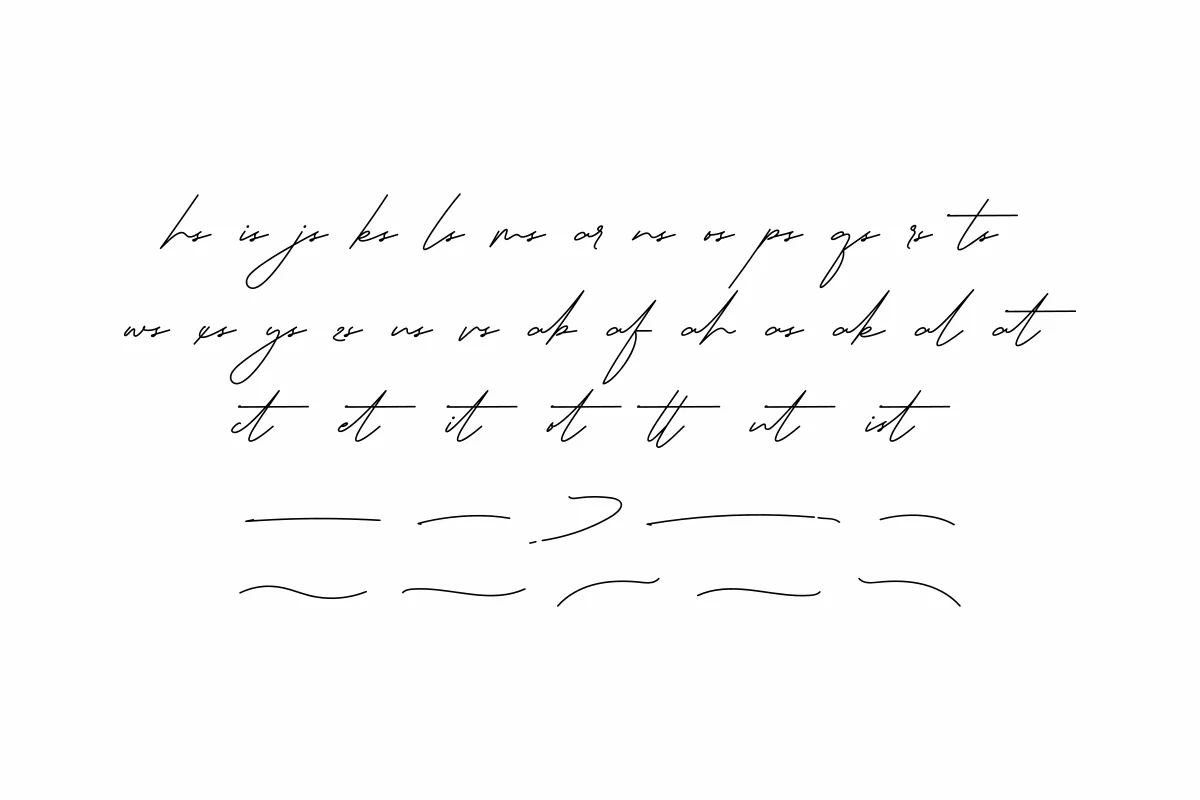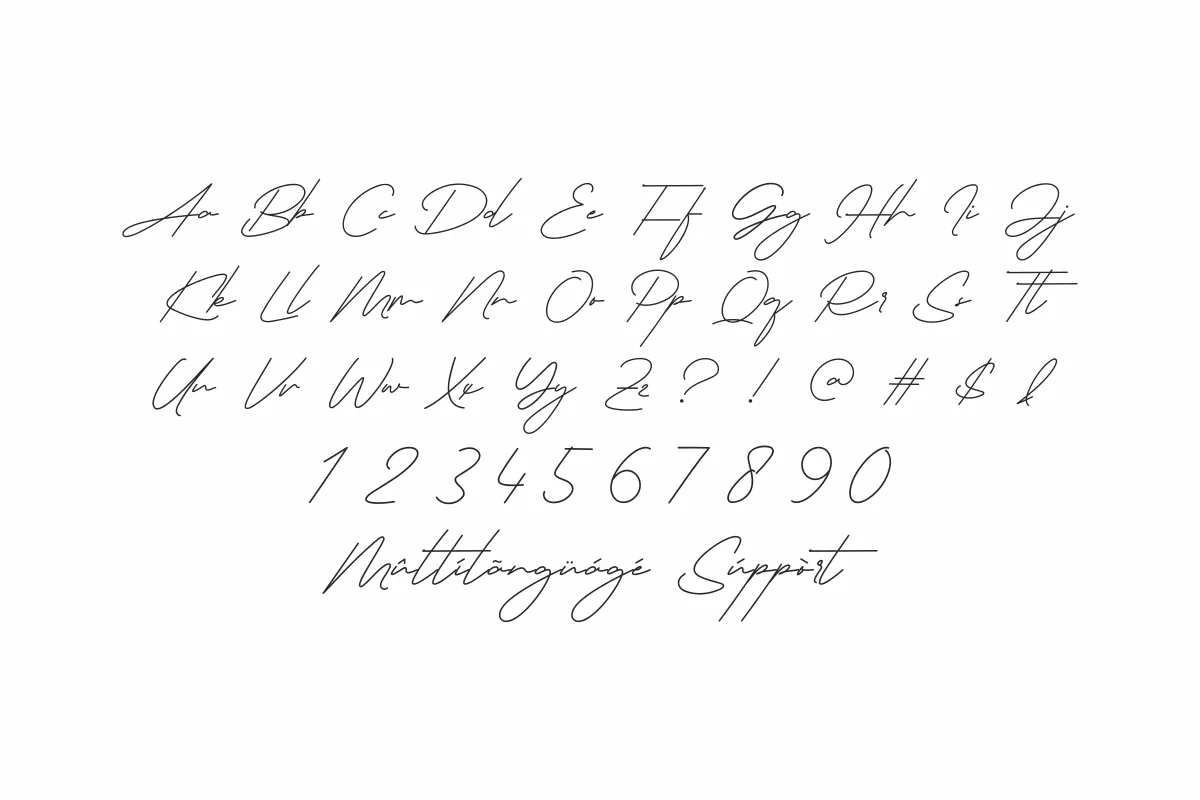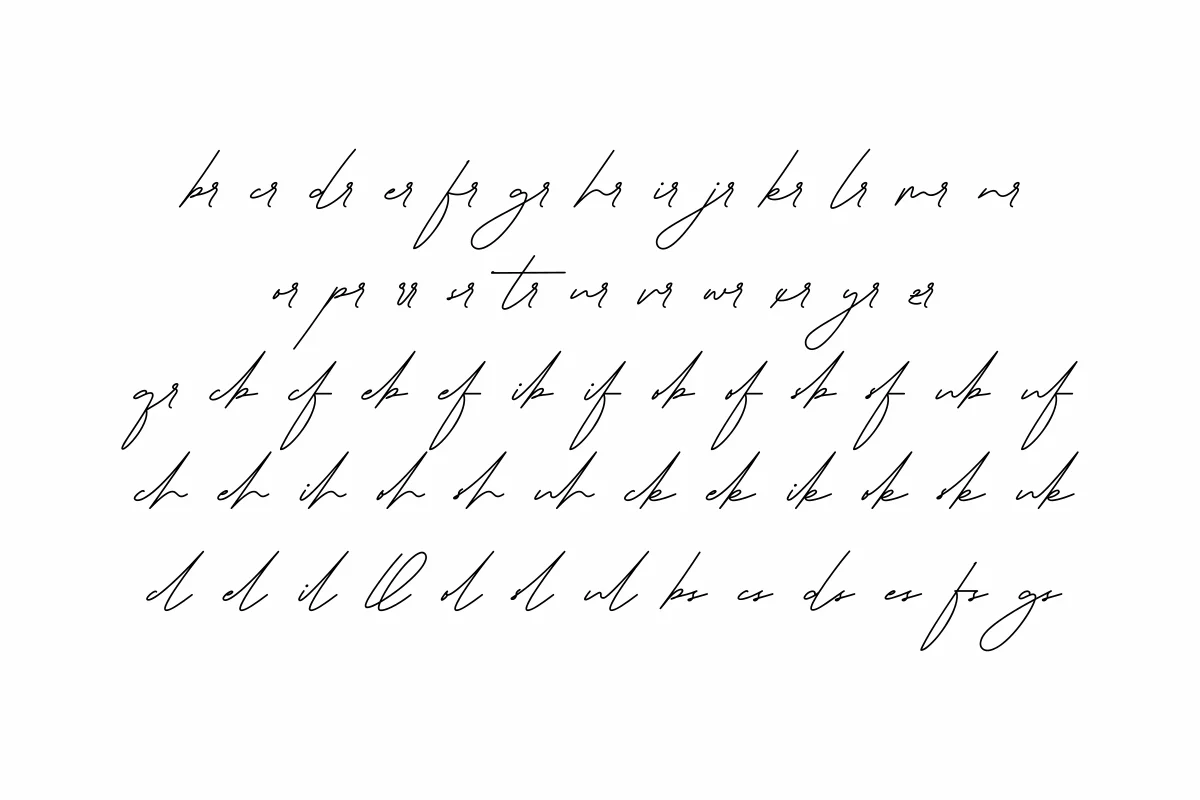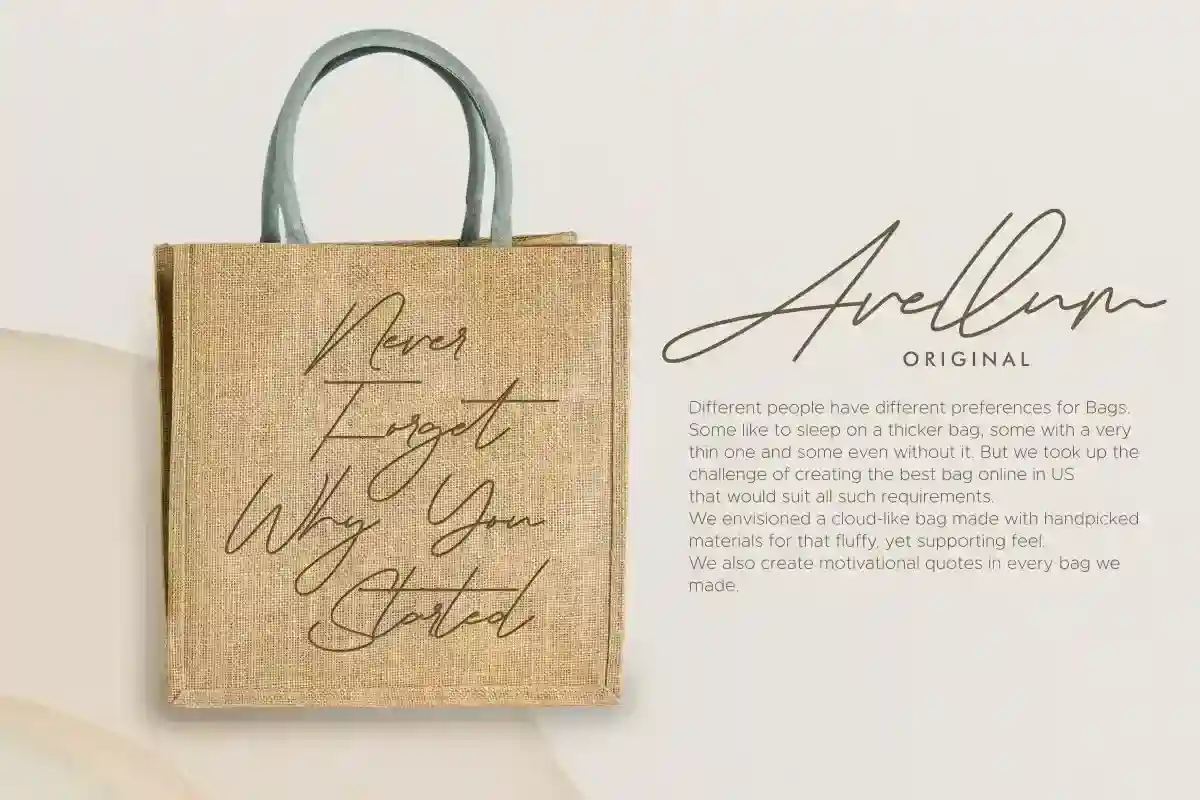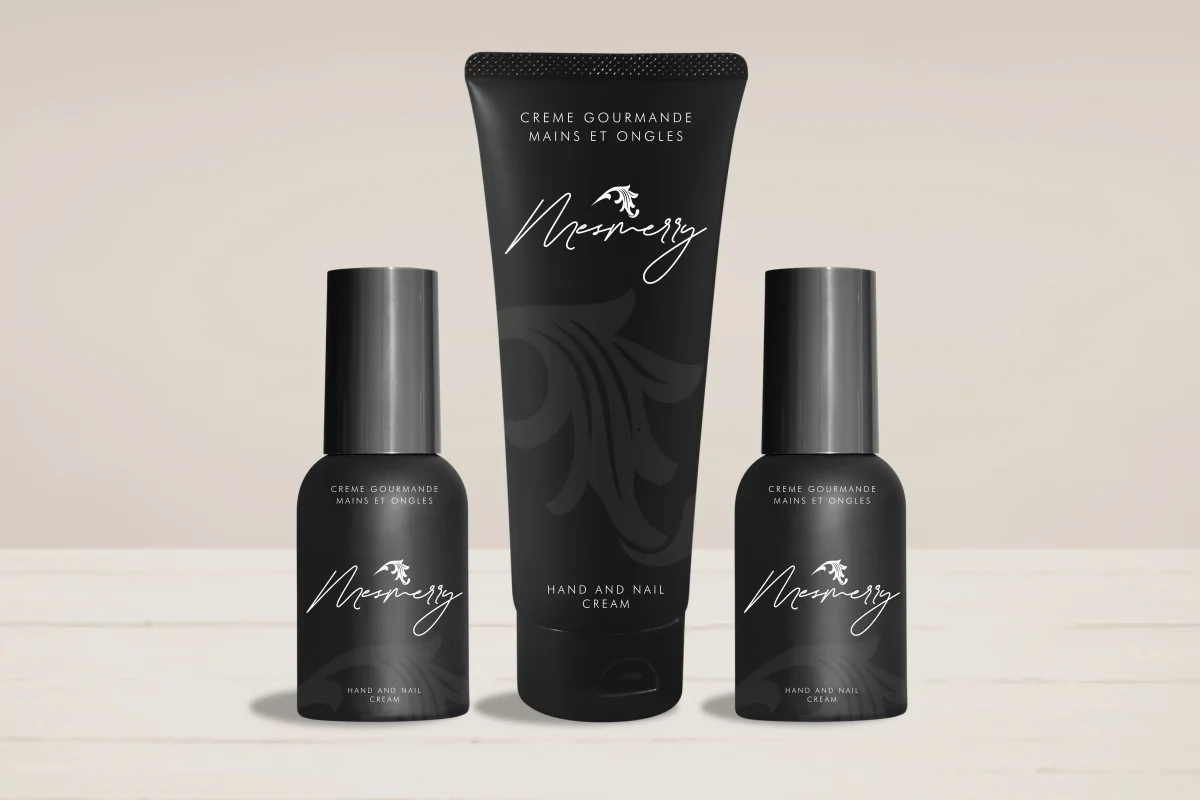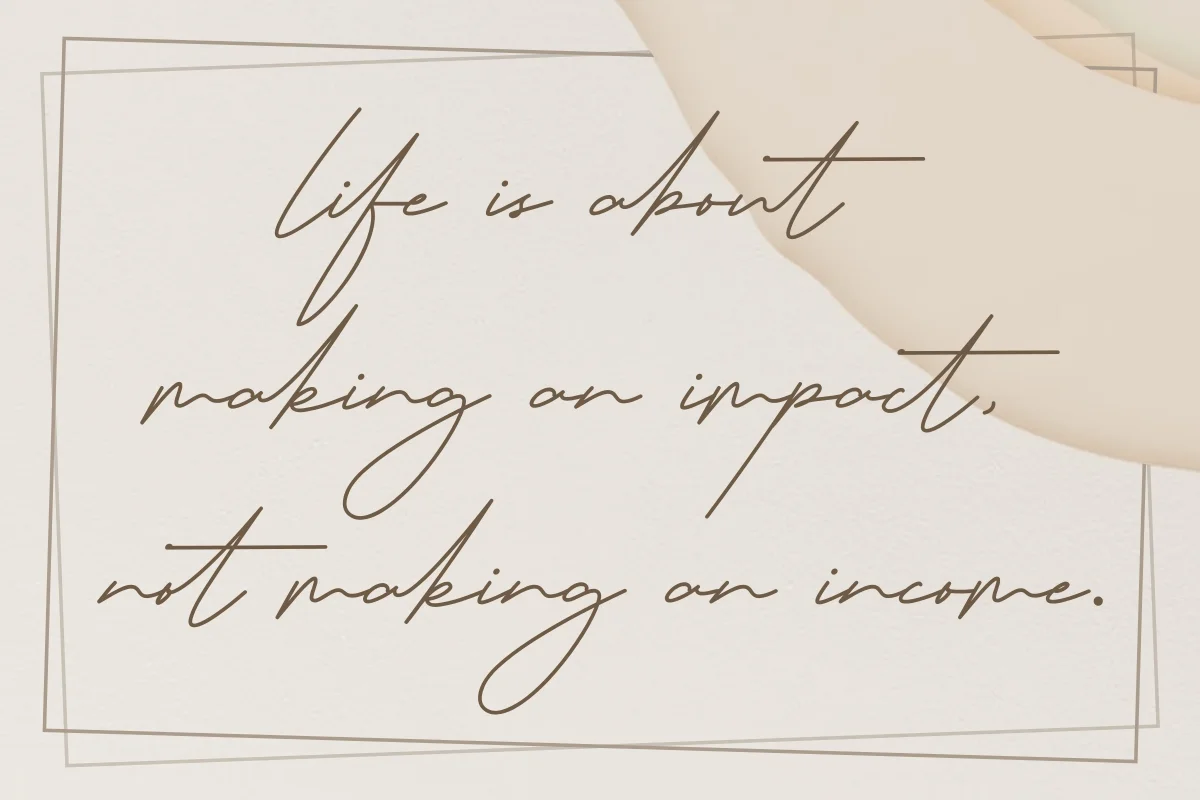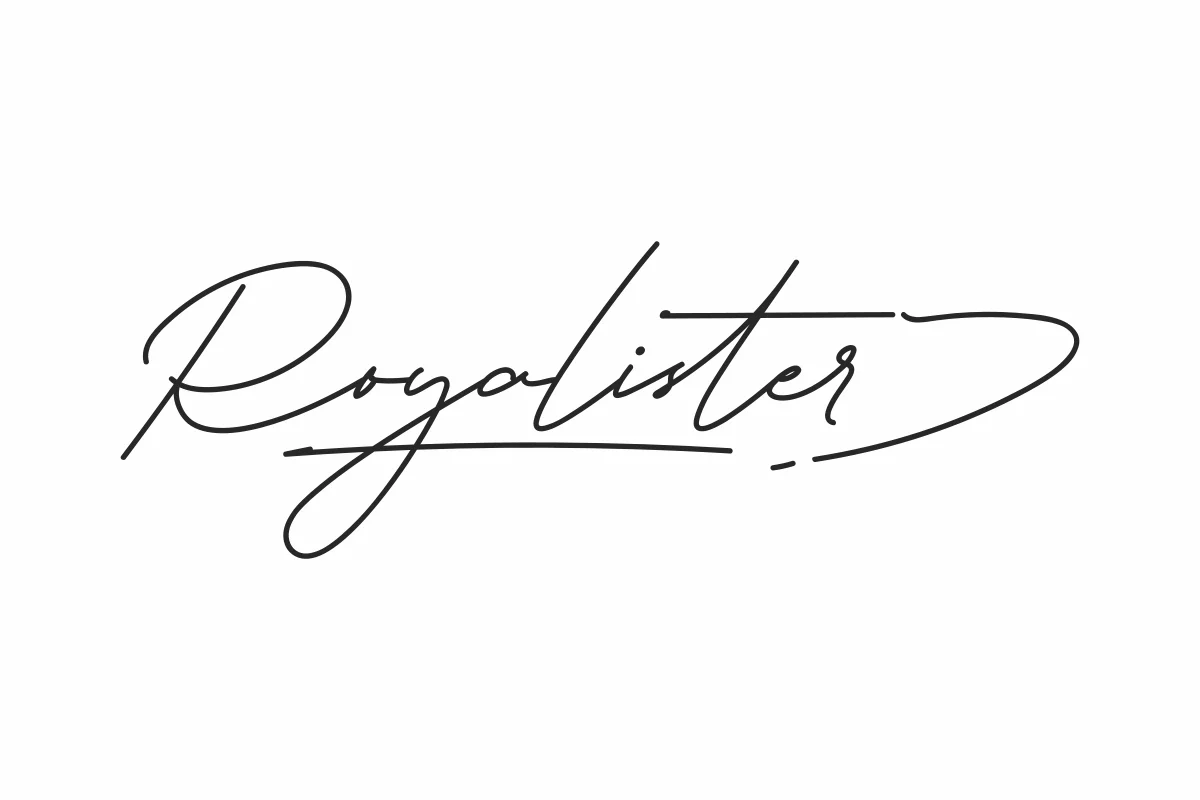
Royalister Font is an original font by NihStudio. It is a handwriting signature font, Made in Indonesia. Get it Now
Royalister Signature Font is a signature handwriting font. Originally made in 2020 by NihStudio Font Designer : Saeful and Suci. On the package you will get :
Handcrafted here in our Studio , Indonesia. Royalister will be great for any projects (require extended license) including : branding, logo, stationery, business card, signage, flyer, brochure etc.
The theme style of the font is elegant, luxury, glamour, gold, vintage, stylish, sophisticated and classic light brush style. The font will be match for this typeface: wedding, events, real estate, architect, law firm, florist, gardening, makeup artist, travel, hotel, musician etc
Royalister had been tested Work on PC & Mac. This font has a stunning characters set, perfectly managed with well spaced and kerning. Accessible in the Adobe Illustrator, Adobe Photoshop, Adobe InDesign, even work on Microsoft Word. Royalister is also PUA Encoded Characters – Fully accessible without additional design software.